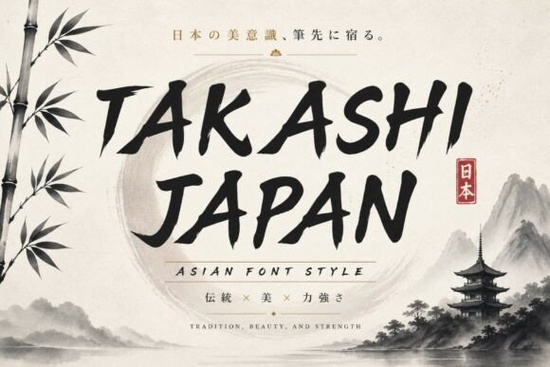
If you're looking for a bold, expressive font that brings authentic Japanese style to your projects, Takashi Japan Font is a strong choice. It’s designed with traditional samurai calligraphy in mind, using dynamic brushstrokes that feel alive on the page. Whether you’re creating posters, branding for an Asian-inspired business, or themed merchandise, this font adds instant character and cultural depth.
What makes Takashi Japan Font stand out?
Unlike generic fonts that mimic Japanese writing without real context, Takashi Japan draws from actual brush techniques used in historical calligraphy. The result? A display font that feels genuine bold, energetic, and full of movement. Each letterform has weight and rhythm, giving your design a sense of motion and strength.
It includes both regular and italic styles, so you can mix and match for visual variety. The font supports uppercase and lowercase letters, numbers, punctuation, and multilingual characters making it useful across different languages and design needs. This flexibility helps if you're working on international projects or want to add subtle text layers in your layouts.
Perfect for creative projects with a cultural edge
This font works well in many themes tied to Japanese culture. Think of it for:
- Samurai or ninja-themed artwork and game assets
- Anime-style posters or fan art
- Movie titles or promotional materials with an Eastern aesthetic
- Branding for restaurants, tea houses, or gift shops with an oriental vibe
- Merchandise like t-shirts, mugs, or tote bags with bold, eye-catching text
- Cultural content such as blogs, social media posts, or event flyers
You don’t need to be an expert in Japanese design to use it effectively just a love for expressive typography. The font’s natural flow means it fits into various layouts without needing over-the-top styling.
How to use Takashi Japan in your workflow
For best results, pair it with simpler typefaces. Use it for headlines or key phrases where impact matters most. Avoid long blocks of text this is a display font, not a body text option. Keep your background clean so the brushstrokes shine through.
Final thoughts: Is it right for your next project?
If your goal is to add authenticity and boldness to designs rooted in Japanese tradition, Takashi Japan Font delivers. It’s not just about looks it carries a feeling. That energy comes through in every stroke, making your work more memorable.
Give it a try, especially if you’ve been searching for a font that feels both powerful and true to its inspiration. You might just find it becomes a go-to in your design toolkit.